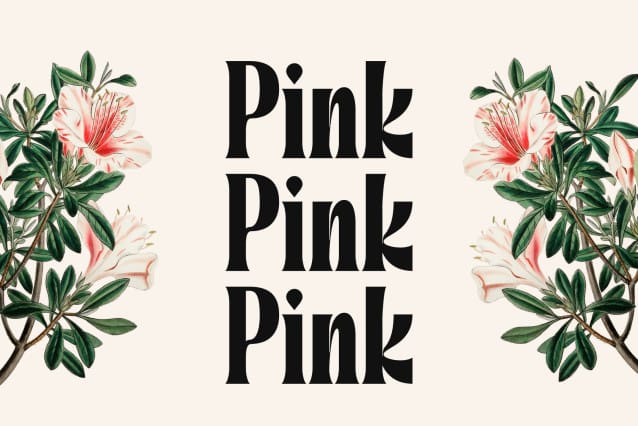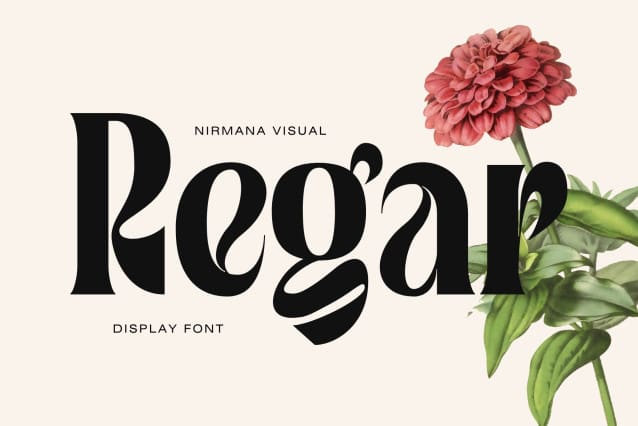
Regar Font
Regar Font is a modern and eye-catching display font designed for bold statements and visual impact. Its clean lines, distinct letterforms, and stylish aesthetics make it perfect for headlines, posters, branding, and editorial design. With a balance of elegance and readability, Regar stands out while maintaining clarity, making it versatile for both print and digital use. Ideal for projects needing a strong, contemporary vibe, Regar Font commands attention and leaves a memorable impression.